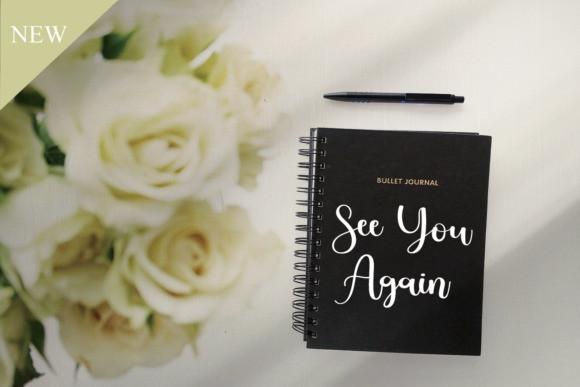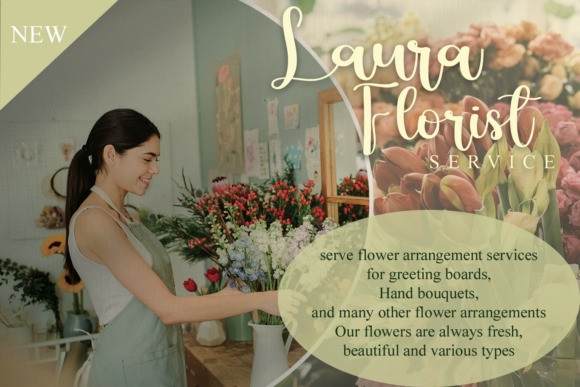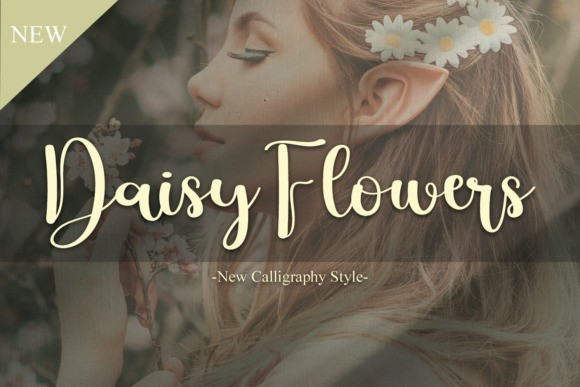
Daisy Flowers Font
Daisy Flowers Script Font is a magical script font carefully created with a touch of elegance. Whether you’re looking for fonts for Instagram or calligraphy scripts for DIY projects, this font will turn any creative idea into a true piece of art!